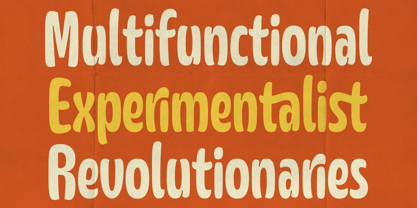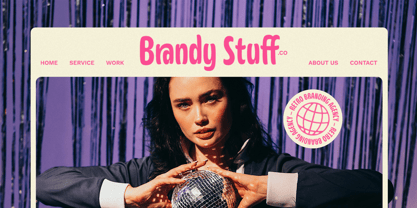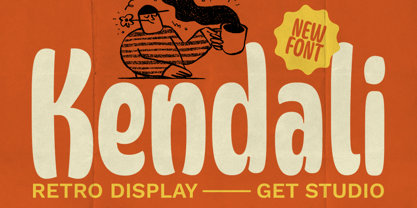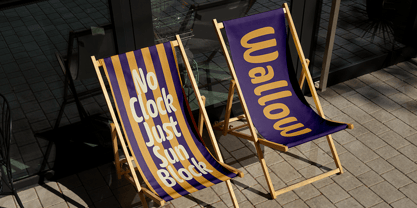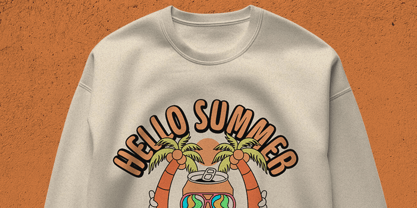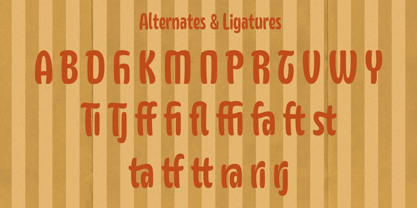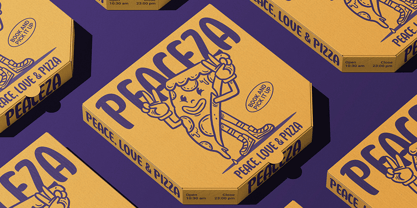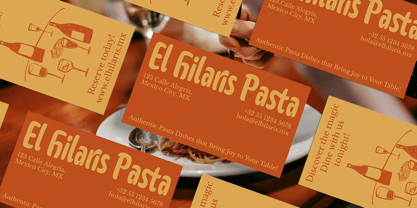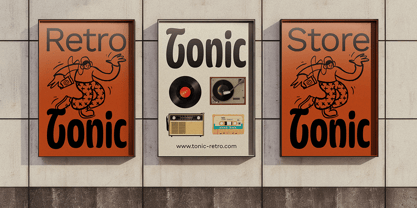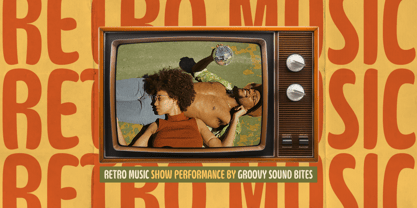
Kendali
by Get Studio
The Kendali Font Family was designed by Hermansyah and published by Get Studio. Kendali contains 1 styles. More about this family
Kendali – Display Font is a clean and bold condensed typeface inspired by retro aesthetics. Its strong vertical structure and minimal detailing make it perfect for impactful headlines, logos, posters, and branding that demand attention. Despite its nostalgic influence, Kendali maintains a modern edge, making it versatile across various design styles.
With its tight spacing and distinctive letterforms, Kendali adds a bold character to any visual layout. Whether you’re aiming for a vintage feel or simply want to make a statement with your typography, Kendali offers a stylish and functional solution for both digital and print projects.
Designers: Hermansyah
Foundry: Get Studio